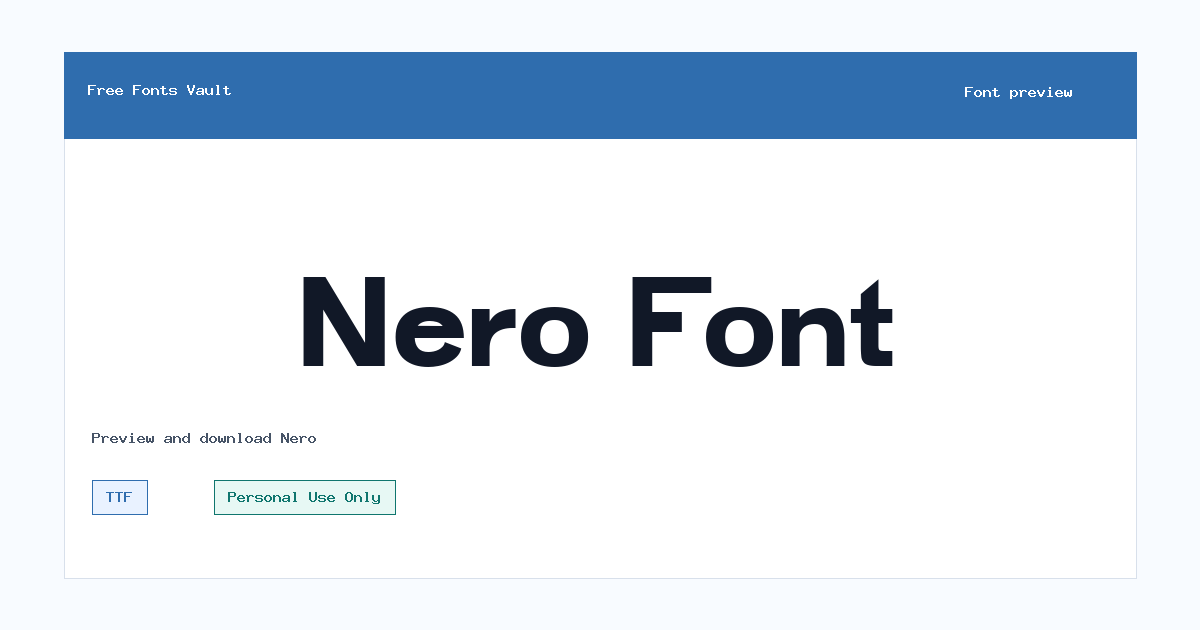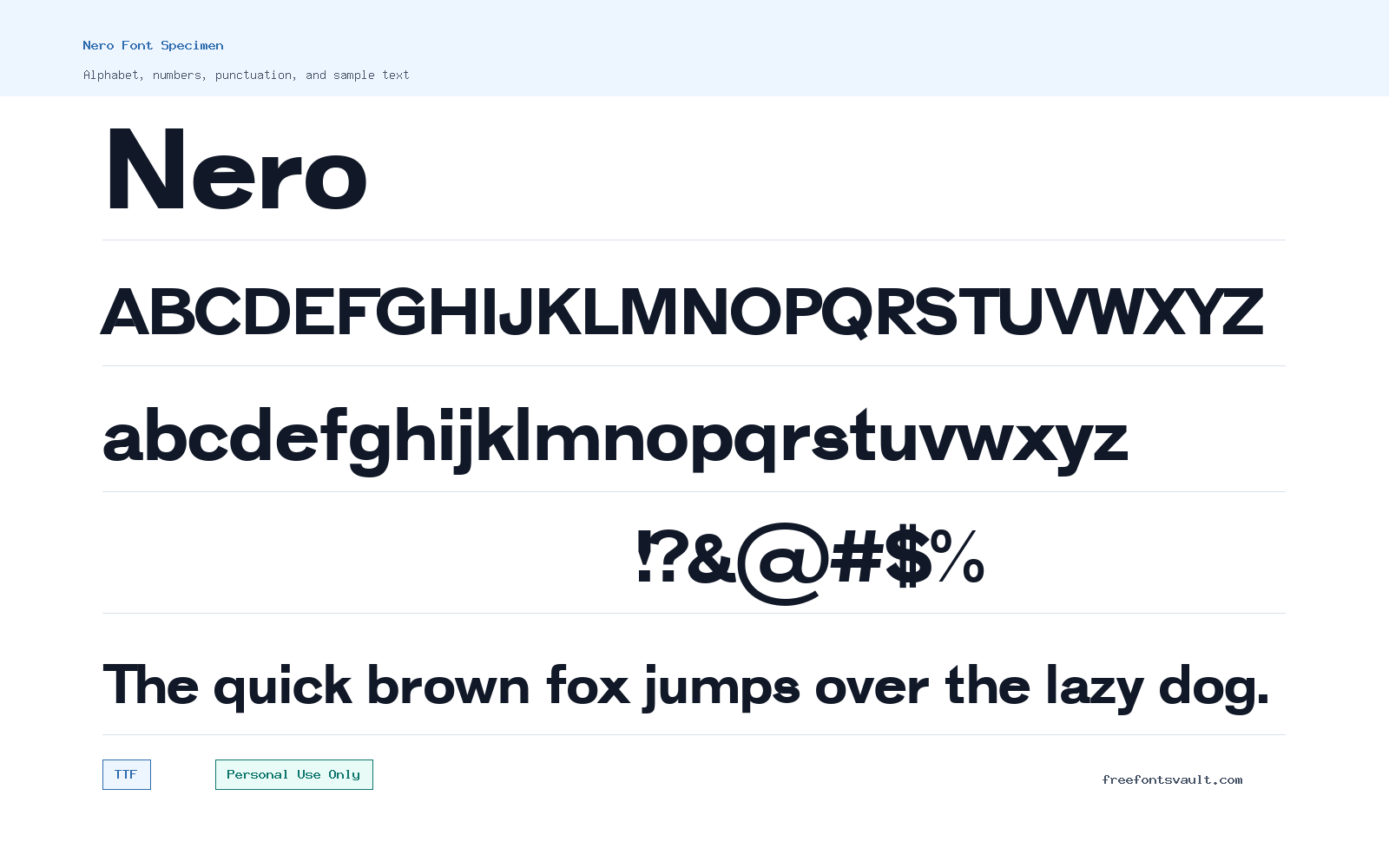
Nero
Nero font.
Nero is a sans serif font family offered here in a regular TTF style for personal projects. Use the live preview to test your own words before downloading, especially if you plan to use it for display text, names, titles, or short layout samples.
About Nero Font
Nero is listed as a sans serif font with a Regular style in TTF format. Since only one weight is present, it is best approached as a straightforward type choice rather than a full multi-weight family. Try it first in the preview box with the exact text you want to design, because single-style fonts can look very different across short words, long names, numbers, and mixed punctuation.
For practical use, Nero is likely most useful in simple personal design drafts where you only need one clean font file. Test it at headline size, medium label size, and smaller paragraph size before committing to a layout. If the font feels too light, too tight, or too plain in body text, pair it with a more complete text family for longer reading and keep Nero for names, headings, labels, social graphics, or mockups.
- Regular style with normal weight, suitable for testing simple personal layouts
- Personal posters, title cards, quote graphics, and social media drafts
- Logo mockups, name previews, headings, labels, and short display text tests
Which Nero style is available?
The available style is Regular, with normal style and 400 weight.